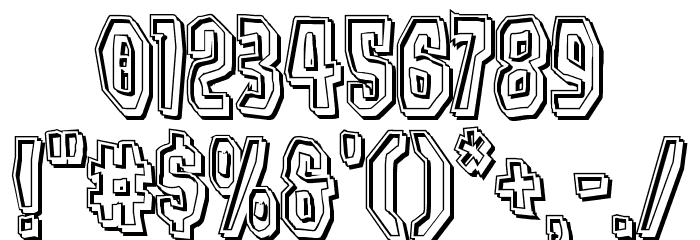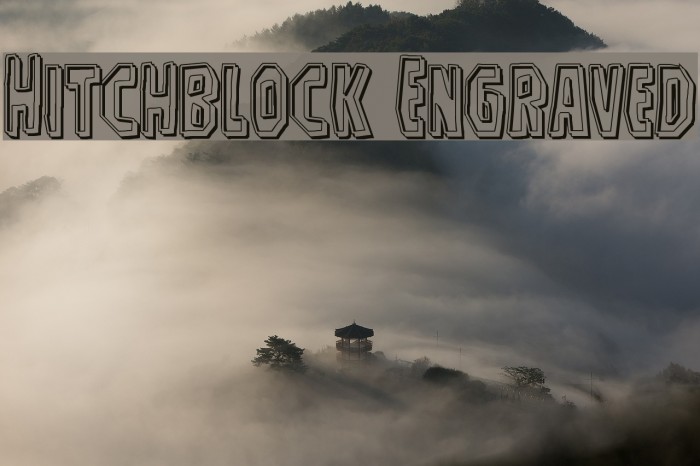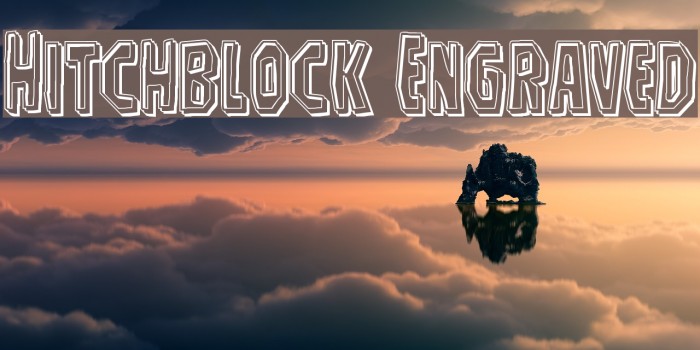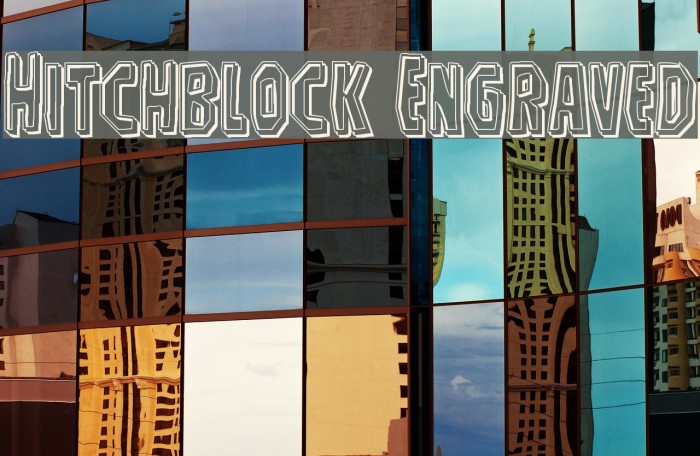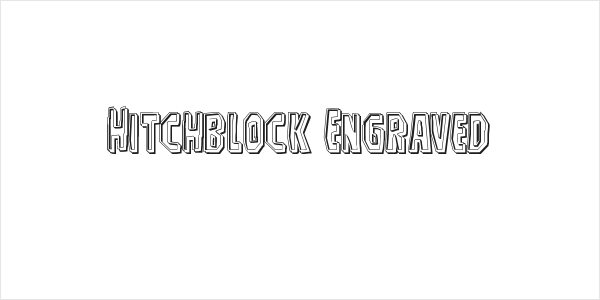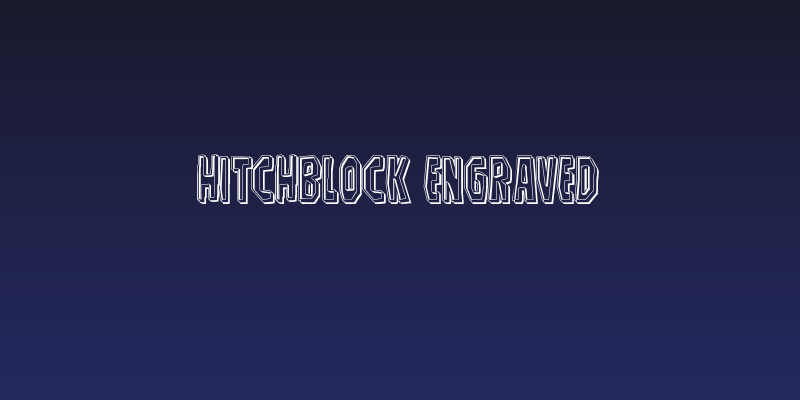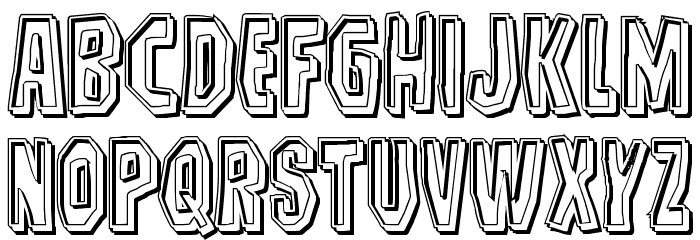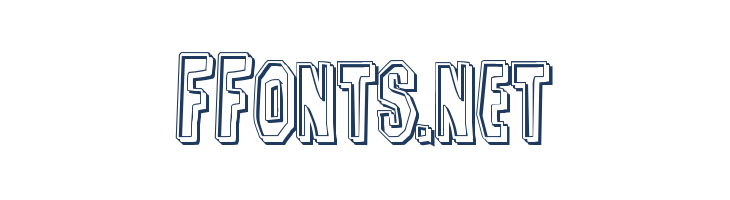
Hitchblock Engraved Font
Hitchblock Engraved Description
This font features a bold, three-dimensional engraved style with a strong, impactful presence. Each character is outlined with a thick black border, creating a sense of depth and shadow. The letters are uppercase and have a geometric, blocky structure that emphasizes their engraved appearance. The numbers and special characters follow the same design, maintaining consistency across the entire set. This font is ideal for creating attention-grabbing headlines or logos that require a bold statement. Its unique style makes it suitable for projects that aim to convey strength and solidity.